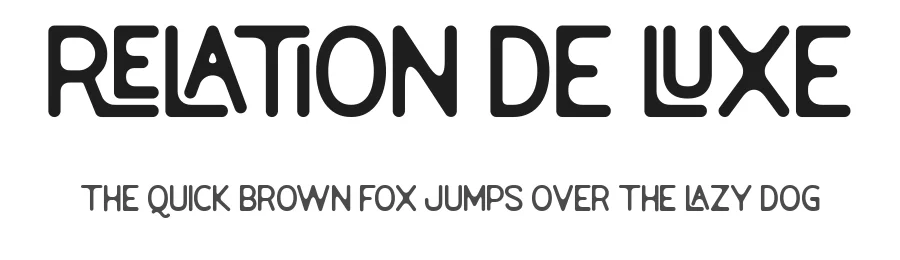
About Golden Ratio Font
Golden Ratio is an all caps grotesque typeface with 3 weights and 110 characters.
Each letter is minimalist but still decorative. It was designed according to the golden ratio, except for some letters like W or Q that naturally need more space than the others.
Golden Ratio includes :
- 3 weights (Bold, Regular, Light)
- 110 characters